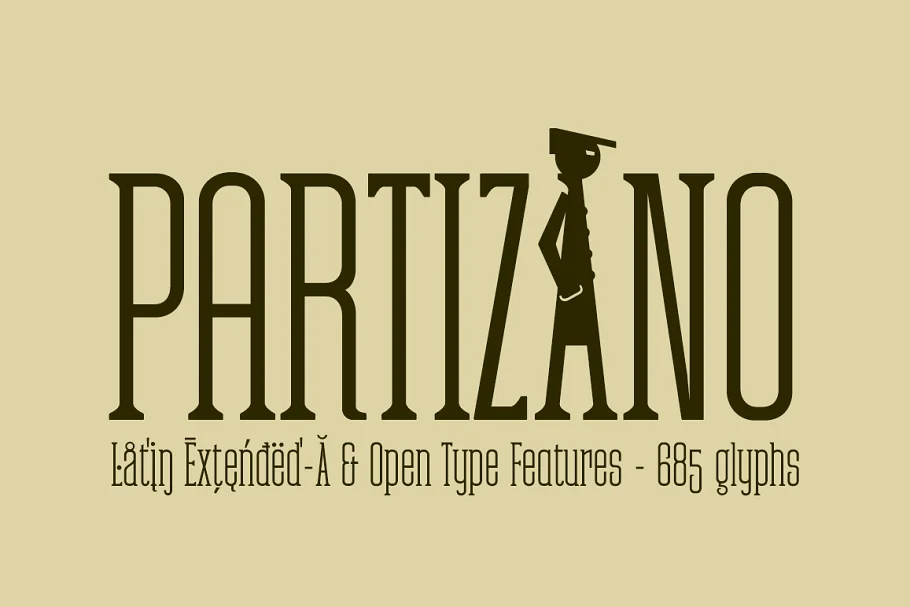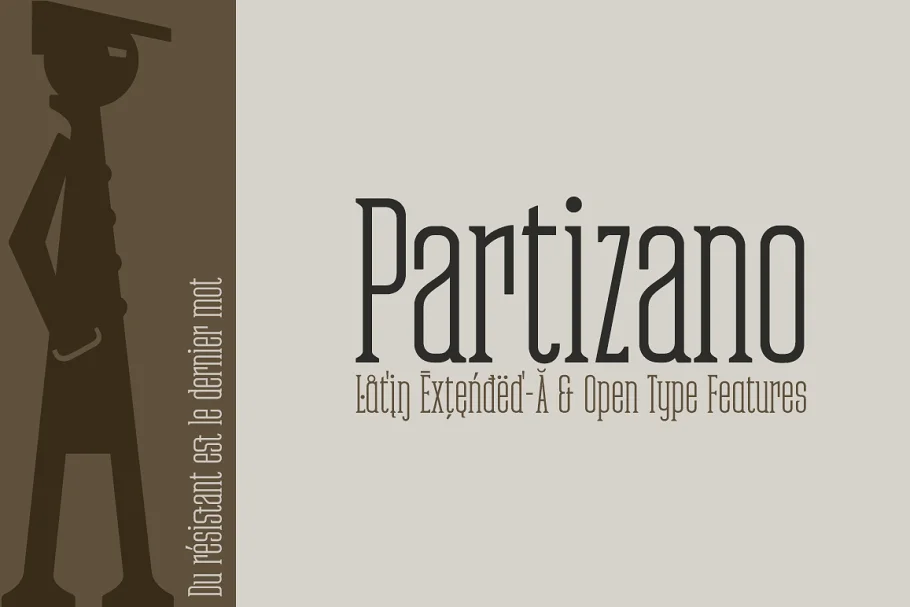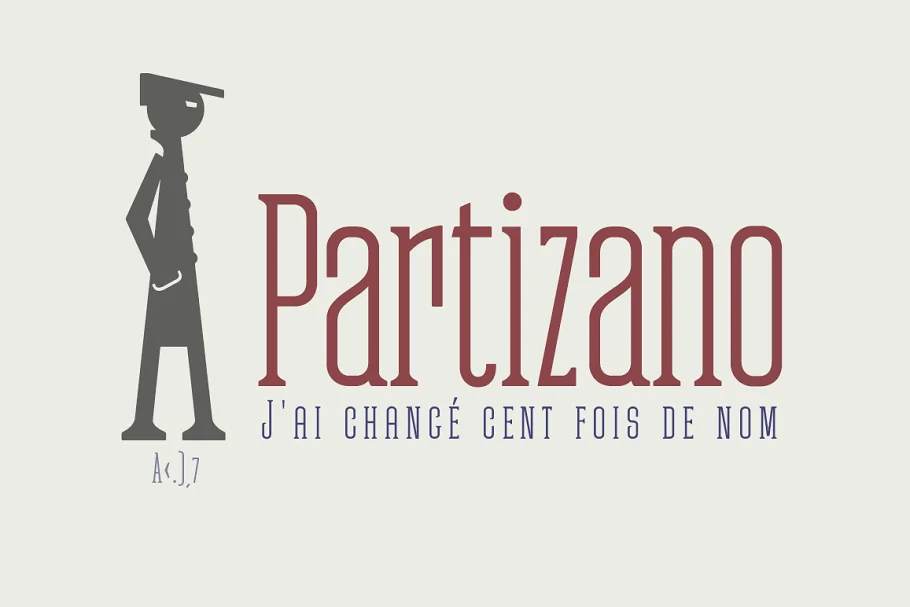
About the Partizano Serif Font
Partizano Serif Font Geometric typography with serif, extra-condensed retro look and very elegant for use in publications, graphic design, and advertising where you need exclusive typography with great horizontal space-saving for headlines and paragraph texts.
It has a complete set of capital letters and numbers and monetary symbols in small caps, also alternative letters such as the ‘A’ capital letter or the lowercase ‘a’ type alpha.
Use the following keys to write the bitcoin symbol and the partisan icon: b #, a #
- OpenType Features: Scientific Inferiors, All Alternates, Superscript, Small Capitals, Superior letters, Subscript, Contextual Alternates, Additional languages, Capital Spacing, Stacked Fractions, Alternate Annotation Forms, Slashed Zero, Standard Ligatures, Extended Fractions, Oldstyle Figures, Numerators, Numbers Small Caps, Denominators, Localized Forms, Discretionary Ligatures, Kerning, Inferiors, Historical Forms, Fractions, Ordinals.